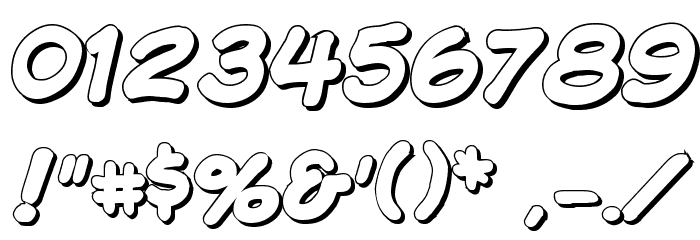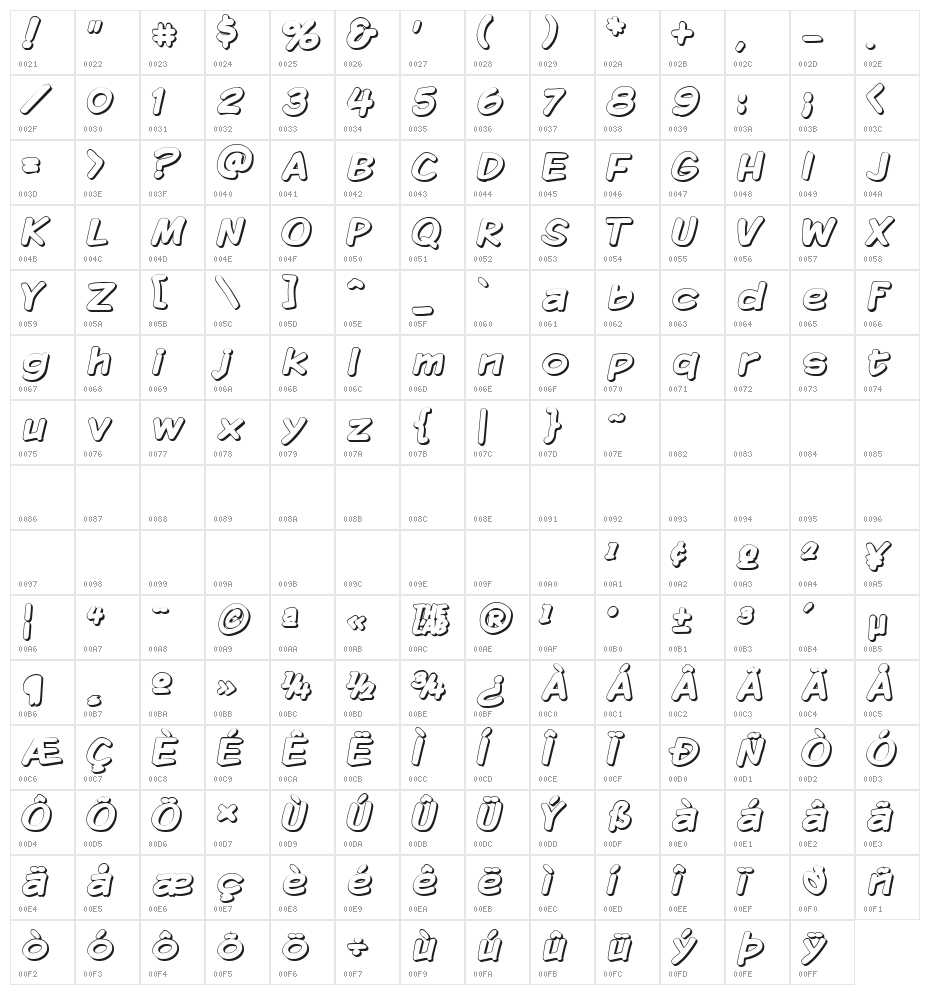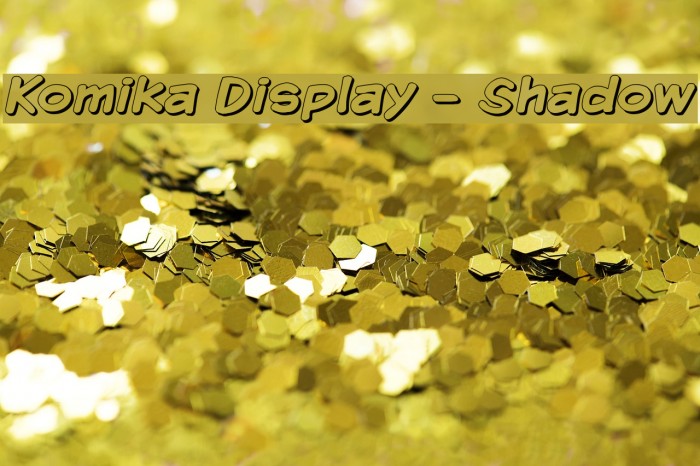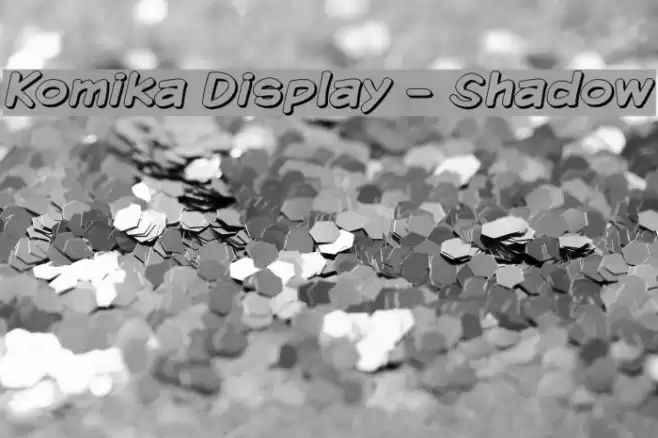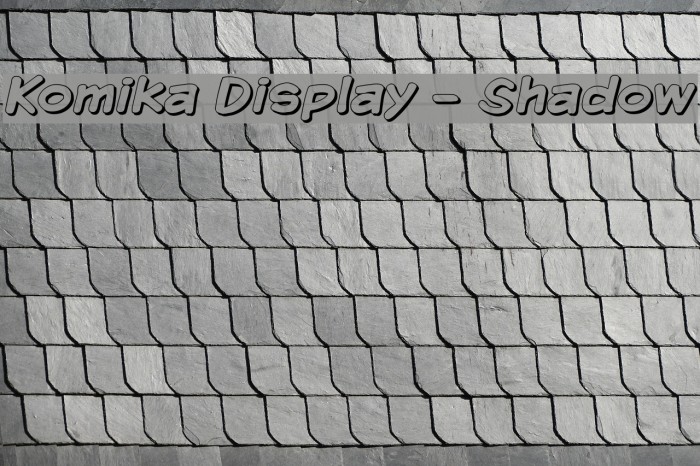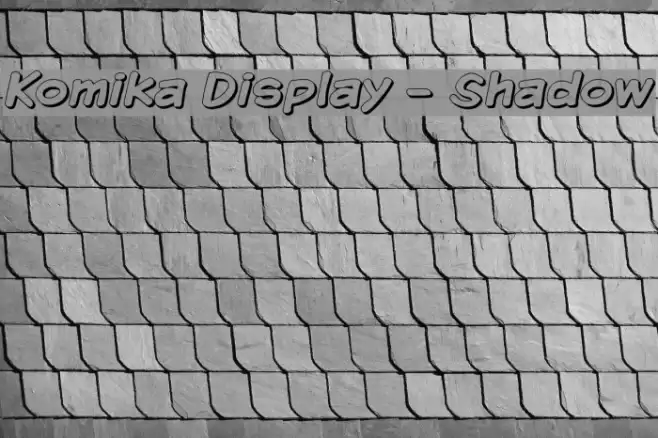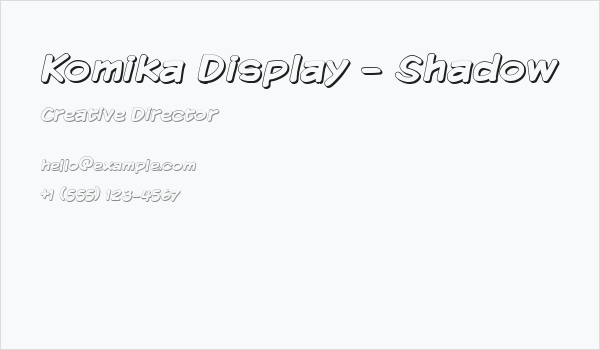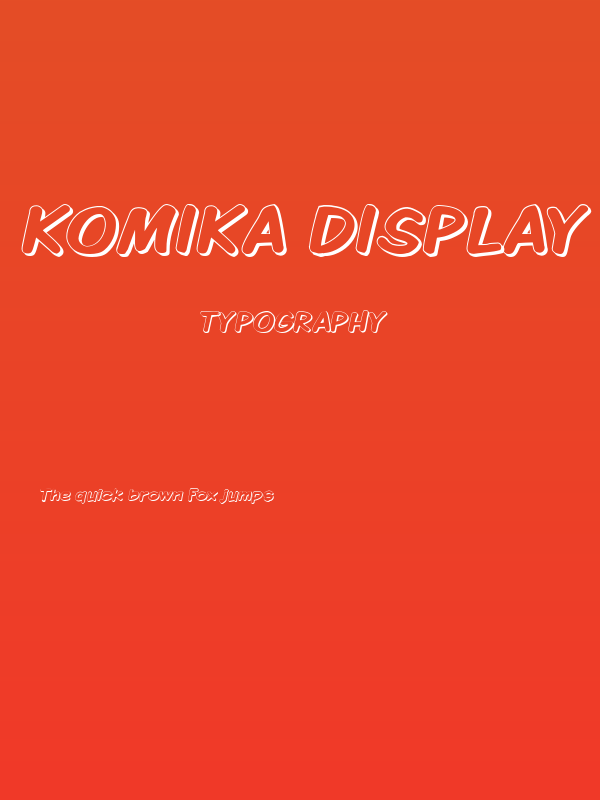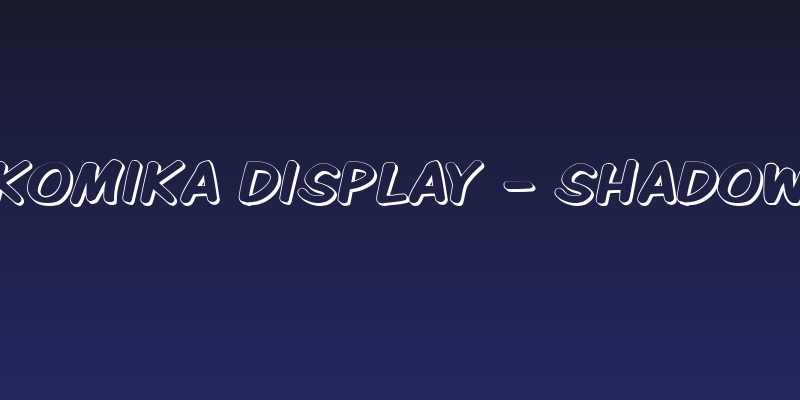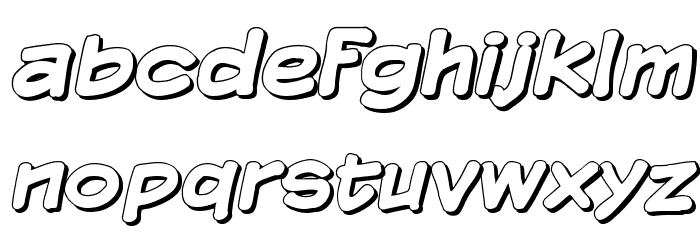
Komika Display - Shadow Font
Komika Display - Shadow Description
This playful and bold font features a distinct shadow effect that gives it a three-dimensional appearance. The characters are rounded and slightly condensed, with a consistent thickness that adds to its cartoonish and fun vibe. The shadow is offset to the bottom right, enhancing the font's depth and making it stand out against backgrounds. This style is particularly eye-catching and suitable for designs that require a lively and energetic feel. The font maintains a uniform stroke width, ensuring readability while still offering a unique and engaging visual appeal.
| Proposed Projects | Ideal for comic books, children's books, playful branding, and eye-catching posters. |